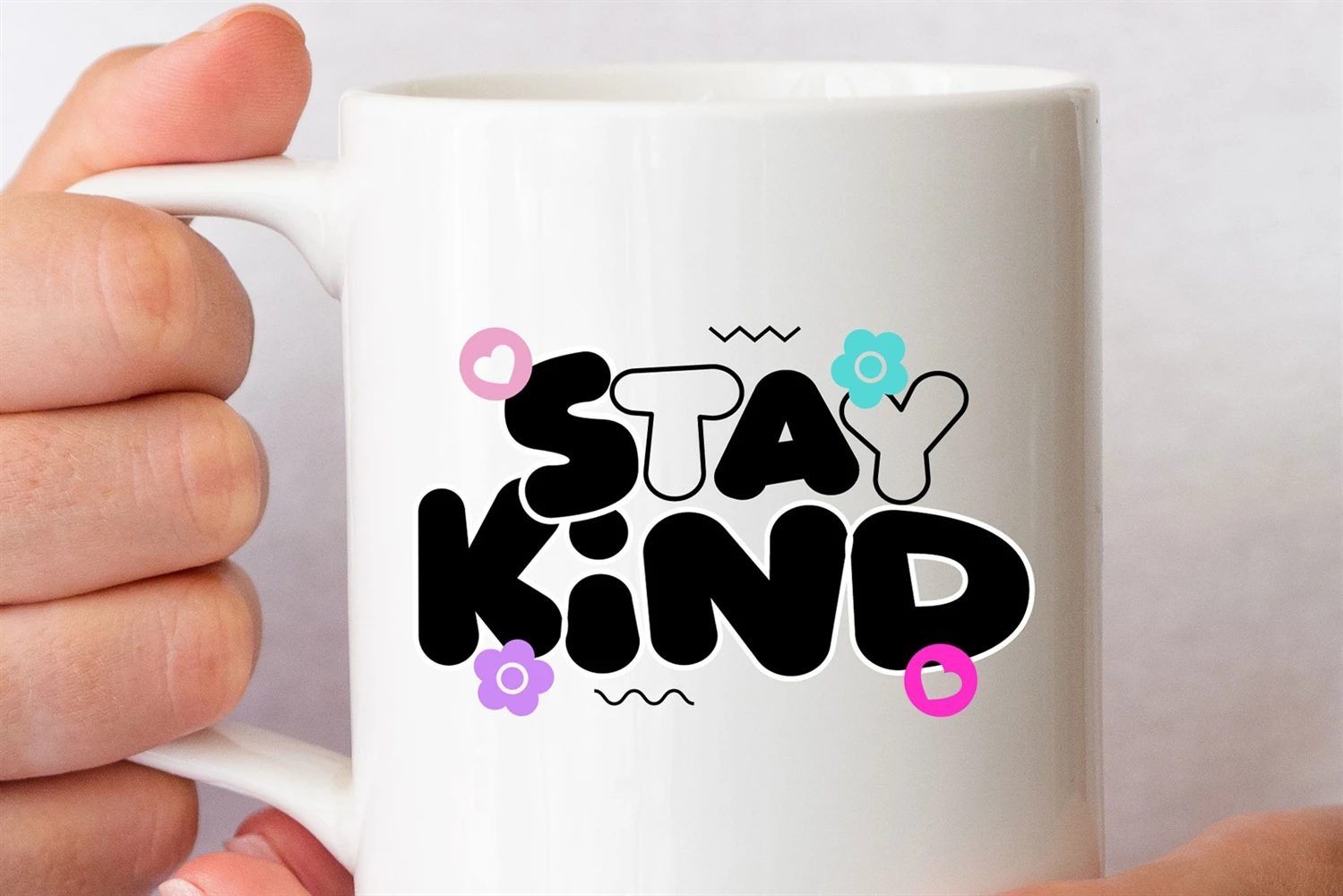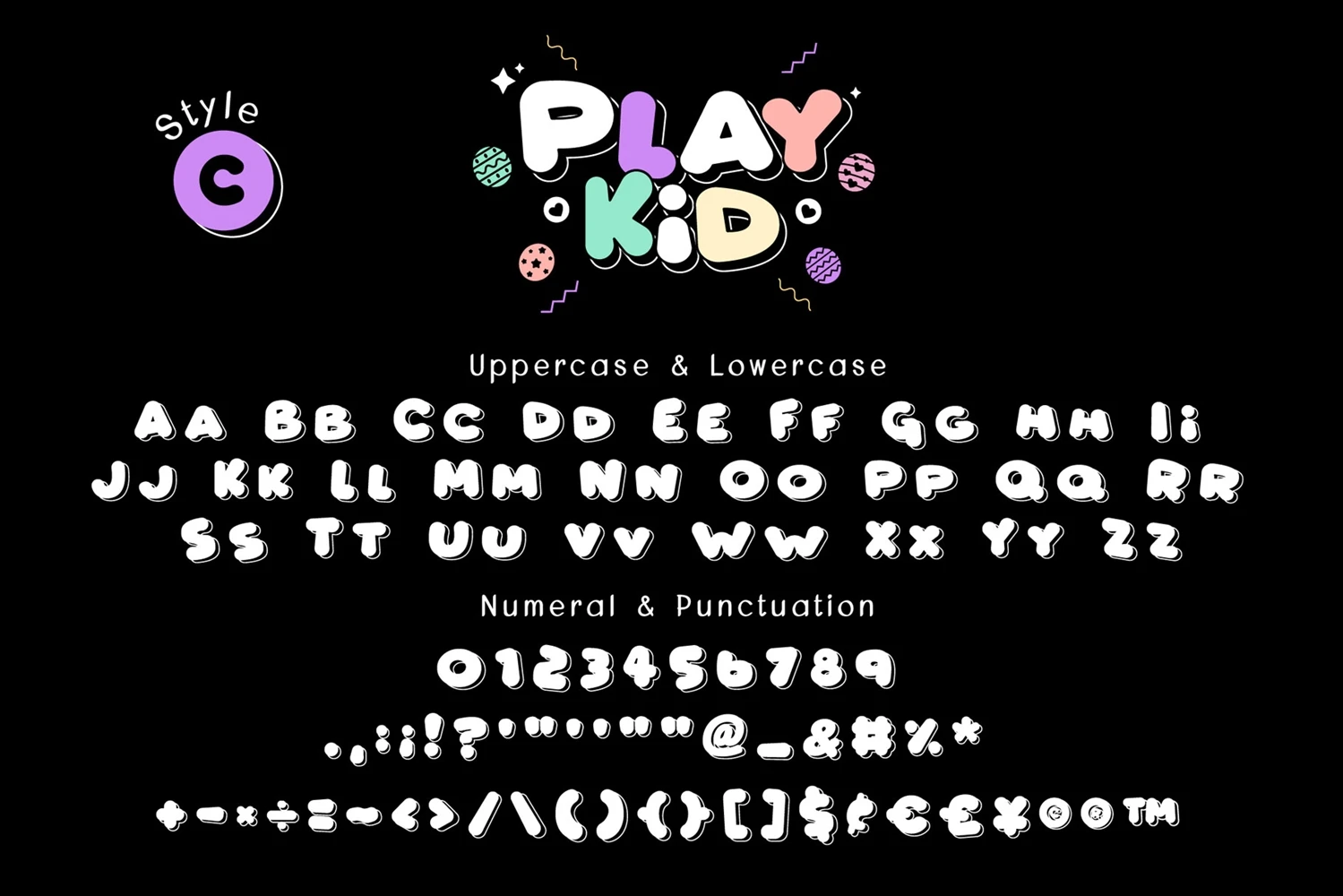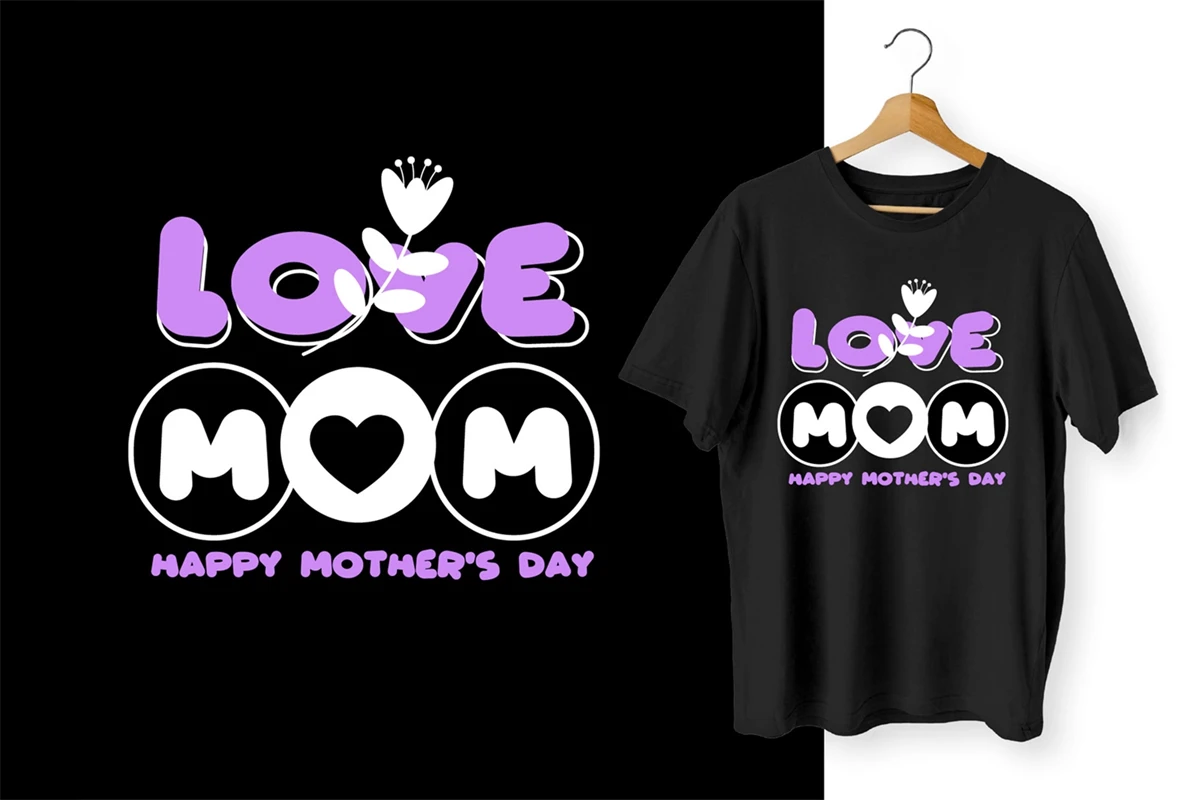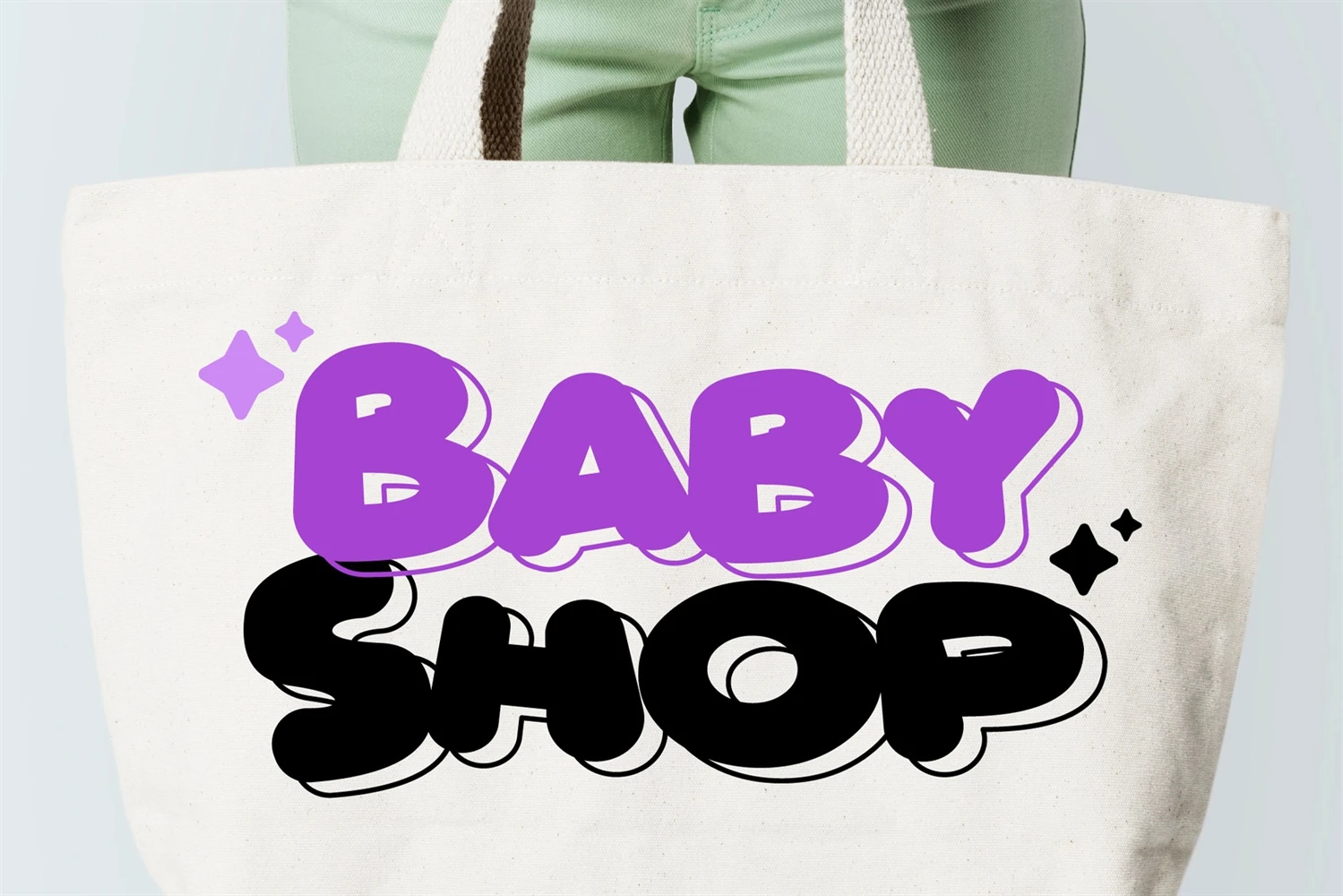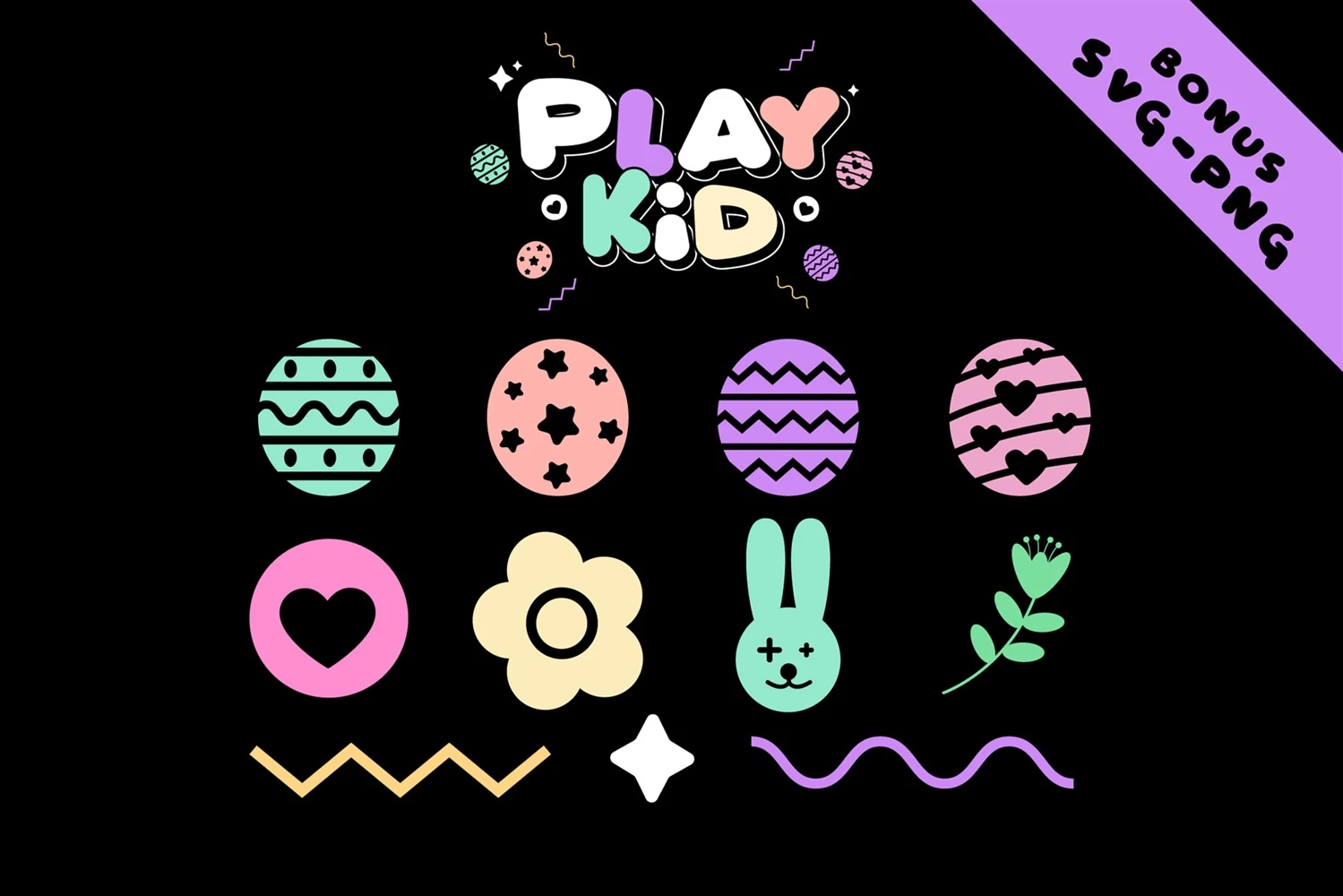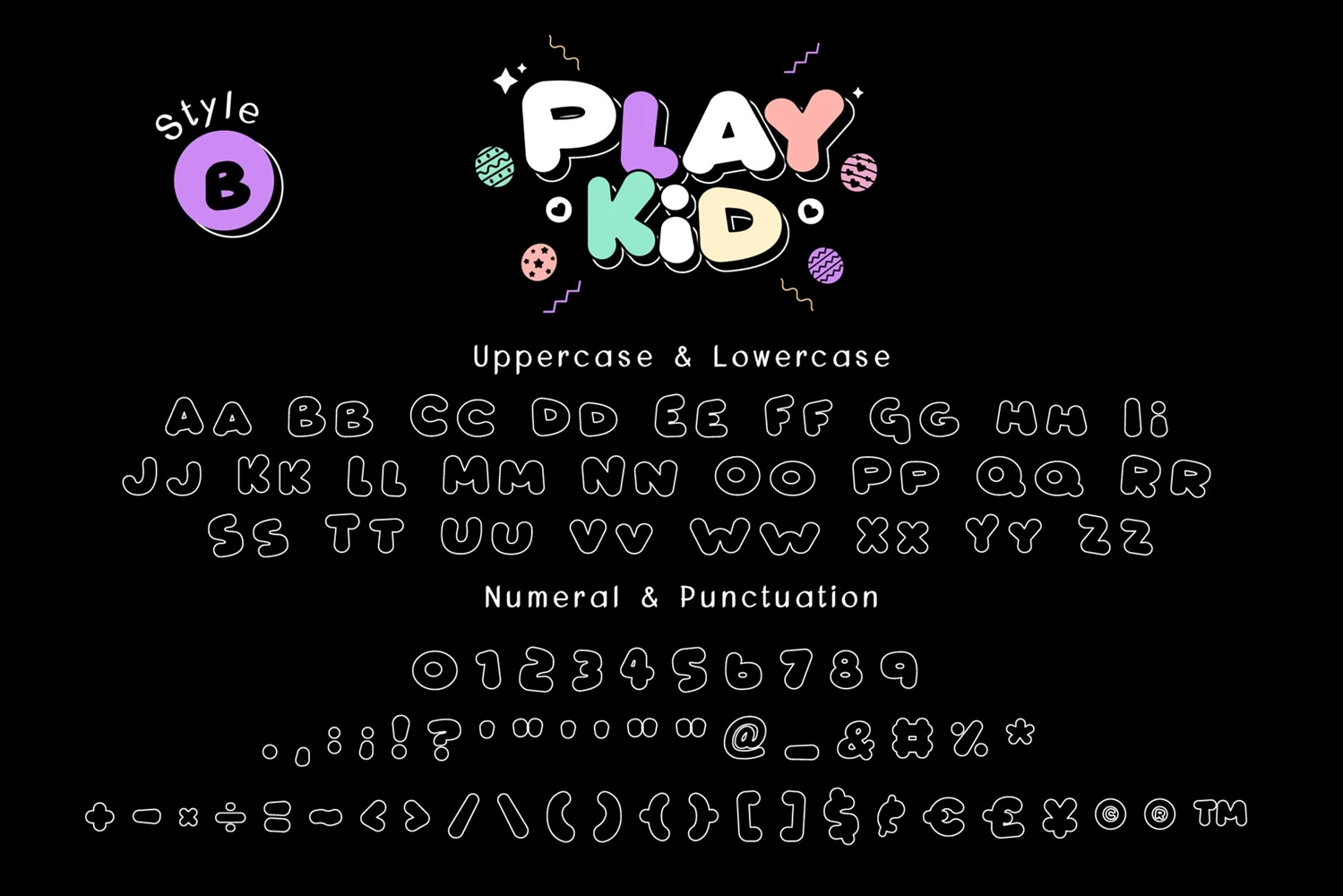
Play Kid is a bulky and playful display font that is perfect for designs that need to make a bold statement. Its exaggerated curves and playful design create a fun and dynamic vibe thats sure to grab attention. Ideal for poster designs, packaging, and branding projects that need a touch of whimsy and energy.